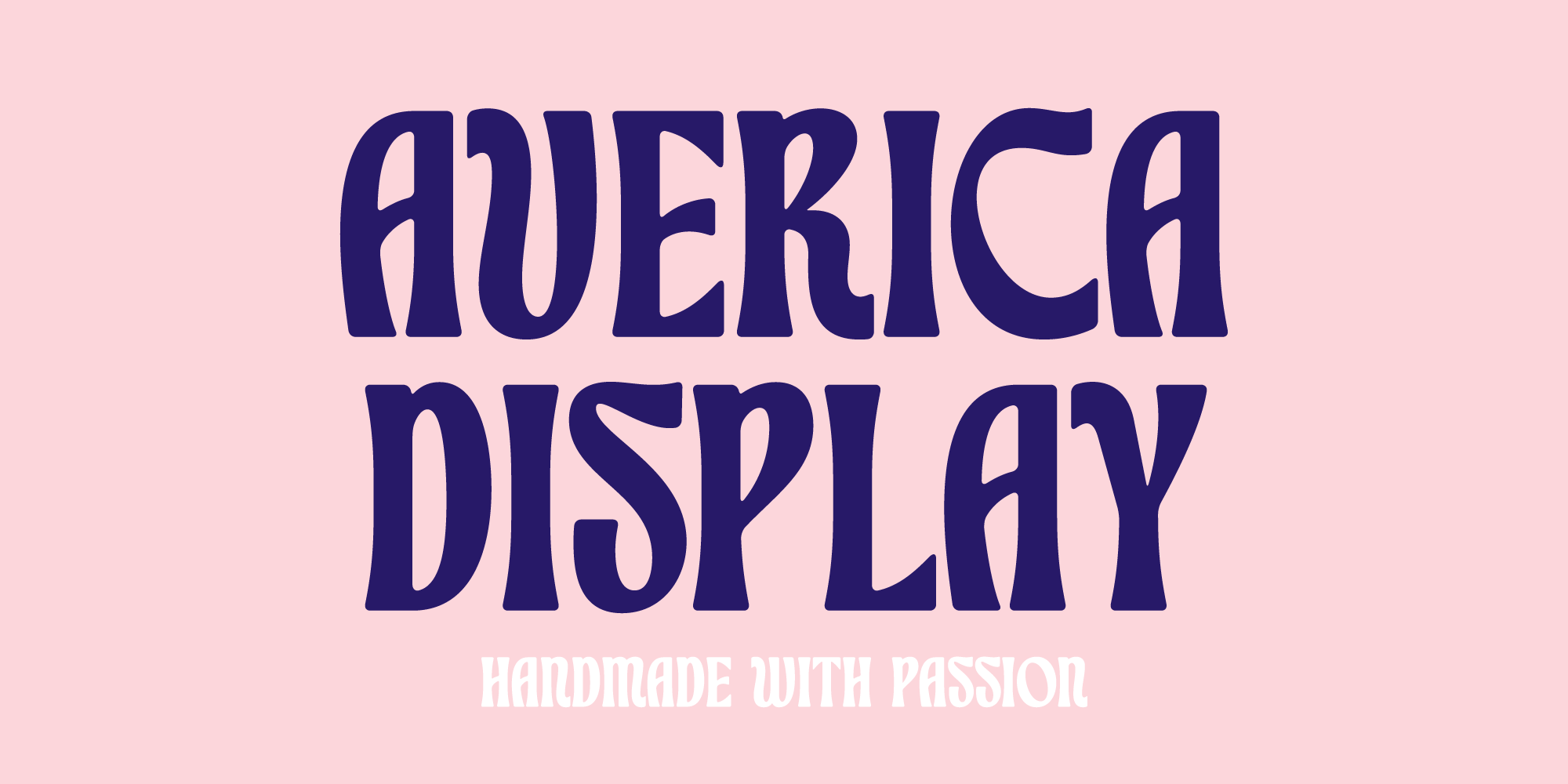
The Averica Font Free Download is ideal for headlines, posters, branding, merchandise, and social media graphics, offering a playful, hand-drawn display aesthetic.
This font is exciting because its bold, quirky design, crafted with love and attention to detail, adds a unique, charming personality to any creative project.
The Averica family includes a single Regular style, perfect for vibrant, eye-catching typography.
Add a touch of personality to your designs with the Averica Font Free Download, a playful display typeface designed by Annas Alam Yahya and published by Letteralle Studio in 2022. Known for its hand-drawn, quirky letterforms with smooth curves and clean lines, Averica is ideal for creating standout headlines, logos, or fun promotional materials. With 200+ glyphs supporting multiple languages, including English, Serbian, Polish, and more, it’s available in OTF, TTF, and WOFF formats for seamless use across print and digital platforms. As 2025 design trends favor bold, expressive typography, downloading Averica Font Free Download keeps your work vibrant and engaging. Test the demo today at fontspace.com for personal use, and consider purchasing a commercial license at letteralle.com for full access.